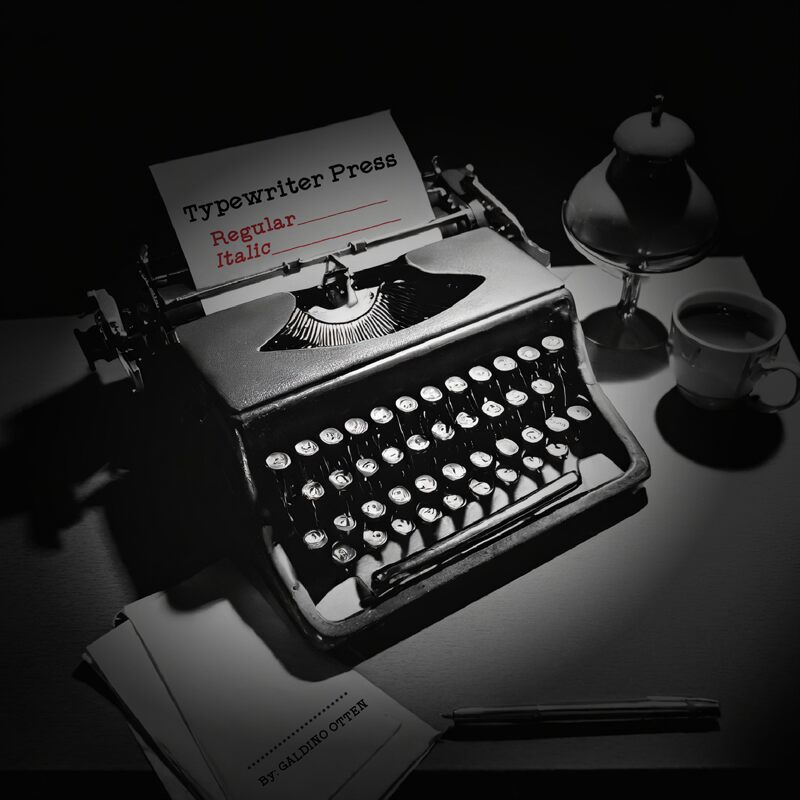
Typewriter Press Italic
Typewriter Press Italic, crafted by Galdino Otten Fonts, exudes a distinct vintage charm with its classic serif and typewriter-inspired aesthetic. This font's imperfect yet captivating strokes evoke a sense of nostalgia, seamlessly blending the timeless appeal of traditional typewriter typography with a modern touch. Its unique character lends itself to projects seeking a distinctive, handwritten-like flair, effortlessly conveying a sense of authenticity and personality.
This versatile font excels in a variety of design applications, from vintage-inspired branding and editorial layouts to creative writing and retro-themed web designs. Typewriter Press Italic's quirky yet refined nature makes it an excellent choice for crafting eye-catching headlines, subheadings, and logotypes that demand attention, while its legible structure ensures readability in smaller text settings. Its adaptability allows designers to infuse projects with a captivating, old-world ambiance that resonates with audiences seeking a connection to the past.